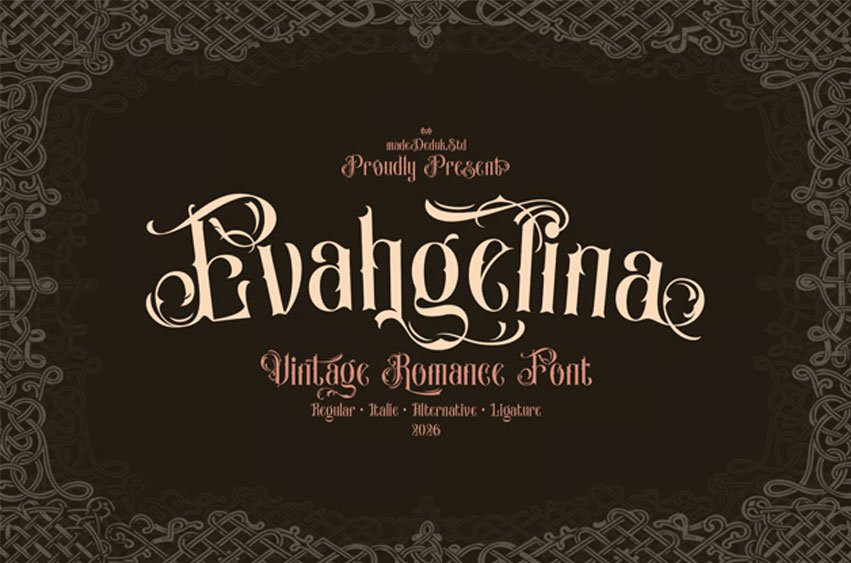
Evahgelina Vintage Font vintage romance font, this font presents a classic aristocratic style with richly detailed letterforms and strong, decorative serif structures. Each character is carefully balanced, featuring ornamental curves that create a sense of grandeur, heritage, and timeless elegance. Its visual character is inspired by old European typography often seen in historical books, vintage signage, and Victorian-era design.
With its bold personality and distinctive identity, this font is ideal for headlines, logos, poster titles, premium packaging, and vintage or gothic-themed designs. The letterforms deliver strong visual impact while maintaining clarity, helping to elevate any composition with a sense of luxury, drama, and classic sophistication.